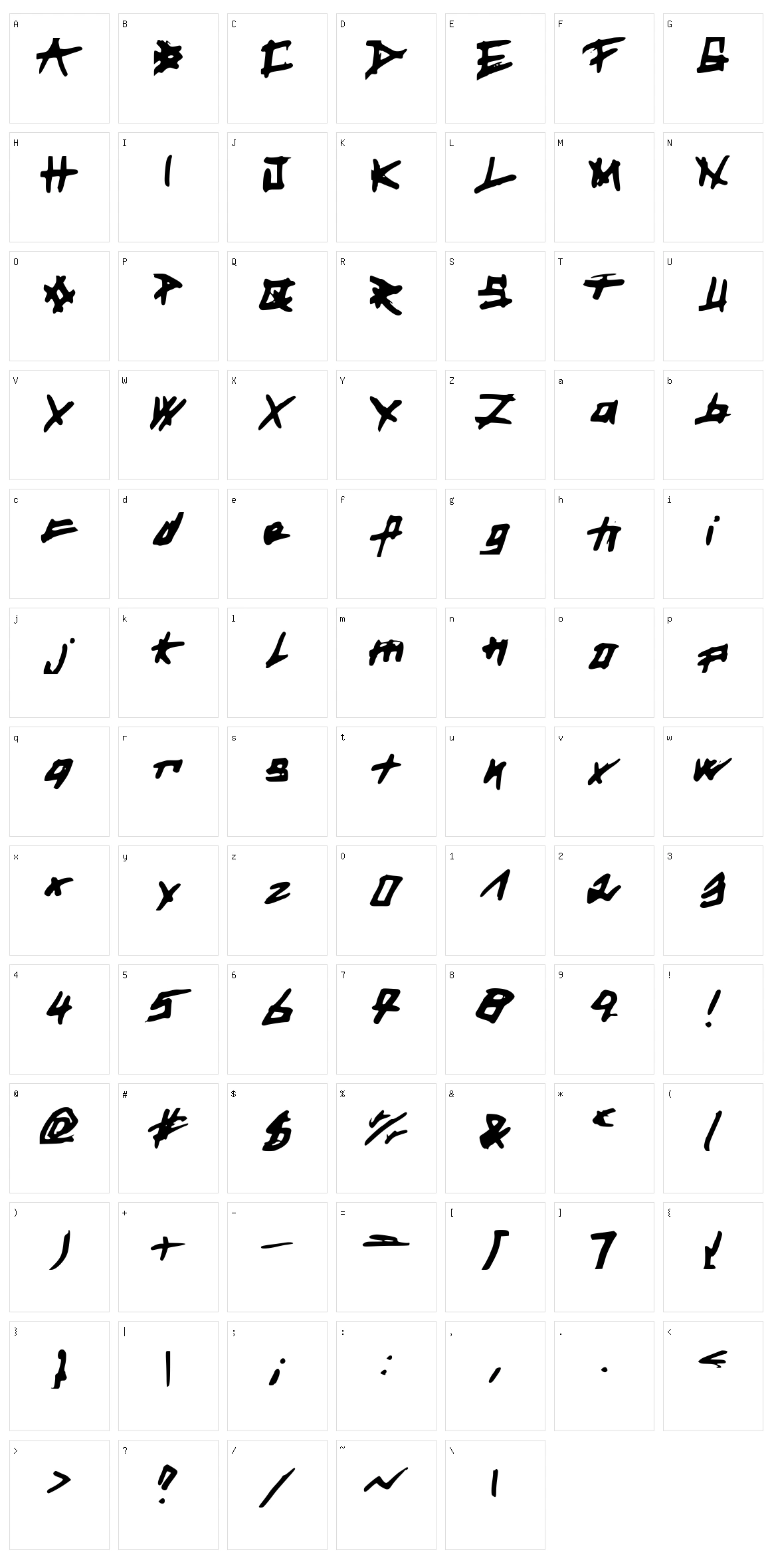
The free font Eyes See Souls is carefully designed by MeLovesCandy, showcasing a thoughtful balance of creativity and usability and falls under the Trash font style. When you download the ZIP file, it contains only 22.94 KB of font files, making it lightweight and quick to download. Please review the license details below to understand permitted usage and distribution rights. If license information is not available, we recommend using this font for personal projects only or contacting the author directly for commercial usage permissions.